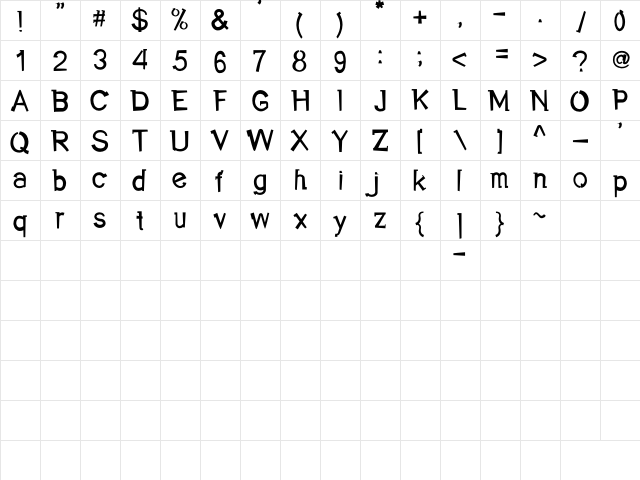
Rapunzel Govermen Regular
| Designer | Hindro cholis |
Design Context for Rapunzel Govermen Typeface
Rapunzel Govermen takes a measured approach to typography — its balanced proportions and neutral character make it a reliable workhorse for both digital and print work.